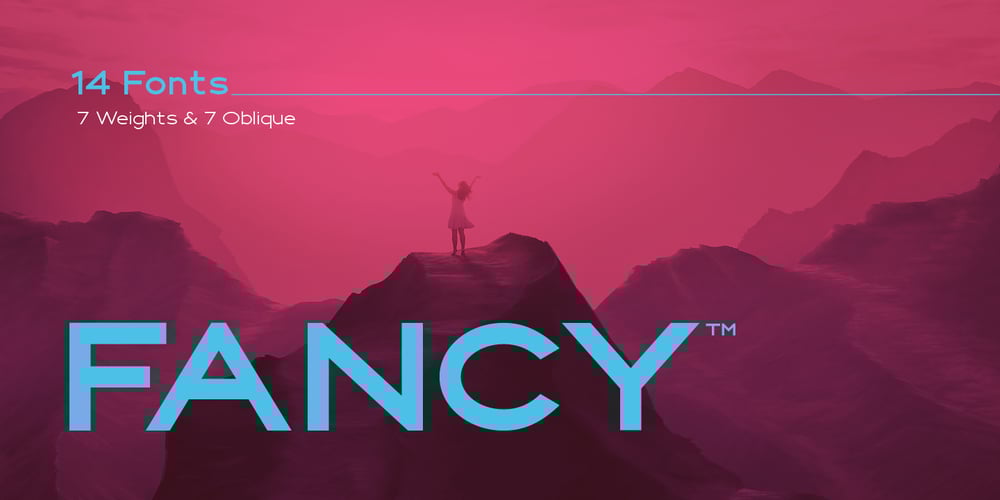
Fancy Font Family was designed by Serdar Öztürk and published by Serdar Ozturk. Fancy contains 14 styles and family package options. Fancy Font Family is a font that I have been working on since 2012 and I have been trying to complete it for a long time. Thanks to its wide lines, you can use it easily in your paragraphs and poster designs. In fact, the purpose of using a font is entirely related to your imagination and your originality. The Fancy Font Family adapts to any design format you need and does not let you down.